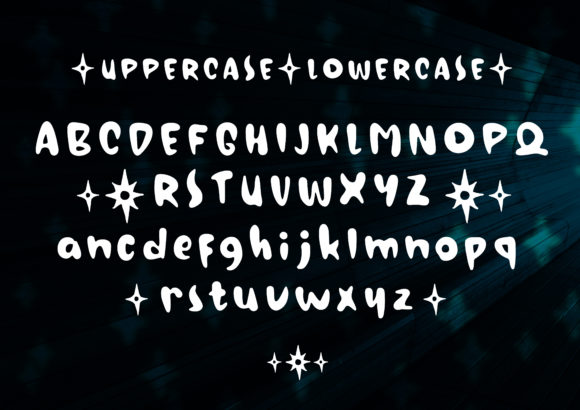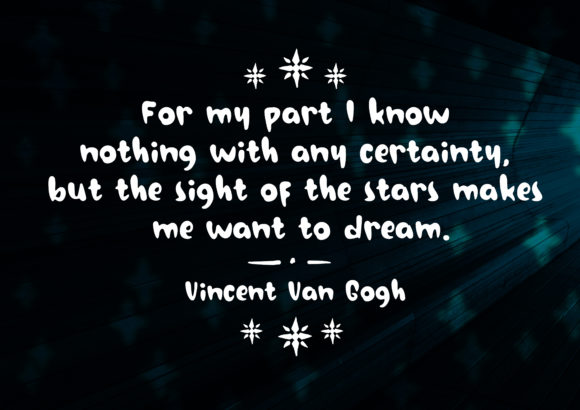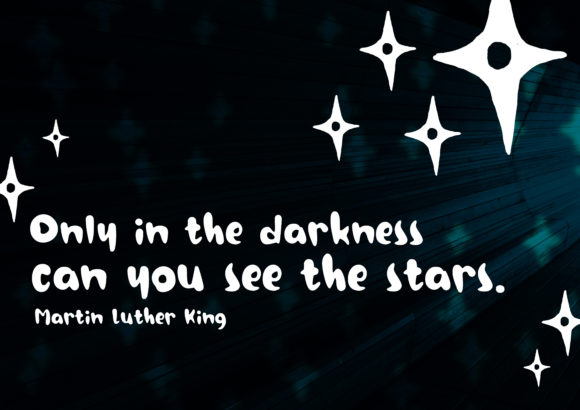
Introducing Flashy Font: The Fun, Shiny, and Bubbly Display Font
Are you tired of using the same old fonts for your designs? Look no further than Flashy Font, a fun, shiny, and bubbly display font that’s sure to add a touch of personality to any project. With its quirky and playful vibe, Flashy Font is perfect for designers and crafters looking to make a statement.
The Characteristics of Flashy Font
So, what makes Flashy Font so special? For starters, its unique and irregular shape gives it a one-of-a-kind look that’s sure to grab attention. The font’s bold and bubbly texture adds a level of whimsy and playfulness, making it perfect for designs that need a bit of flair. Whether you’re working on a logo, a headline, or a social media graphic, Flashy Font is sure to make your text stand out.
What Makes Flashy Font So Versatile?
One of the best things about Flashy Font is its incredible versatility. Despite its bold and playful nature, this font can be used in a wide variety of contexts, from formal to informal, and from digital to print. Whether you’re designing a business card, a brochure, or a website, Flashy Font is sure to adapt seamlessly to your needs.
Flashy Font is perfect for a wide range of design projects, including:
- Logos and branding materials: Add a touch of personality to your logo or branding materials with Flashy Font’s unique and playful vibe.
- Social media graphics: Make your social media graphics stand out with Flashy Font’s bold and bubbly texture.
- Headlines and titles: Add a level of whimsy and playfulness to your headlines and titles with Flashy Font’s irregular shape and bold texture.
- Invitations and party decorations: Flashy Font is perfect for creating fun and playful invitations and party decorations.
Why Designers and Crafters Love Flashy Font
Designers and crafters love Flashy Font for a variety of reasons. For starters, its unique and playful vibe allows them to add a touch of personality to their designs. Additionally, the font’s versatility makes it perfect for a wide range of projects, from formal to informal. Whether you’re a professional designer or a DIY crafter, Flashy Font is sure to become a favorite in your toolkit.
Tips for Using Flashy Font Effectively
Here are a few tips for using Flashy Font effectively:
- Use it sparingly: While Flashy Font is perfect for adding a touch of personality to your designs, it’s best used sparingly. Try using it for headlines or titles, and pairing it with a simpler font for body text.
- Experiment with colors: Flashy Font looks great in a variety of colors, so don’t be afraid to experiment and find the perfect hue for your design.
- Pair it with other fonts: Flashy Font pairs well with a variety of other fonts, so try experimenting with different combinations to find the perfect look for your design.
| Font Name | Flashy Font |
In conclusion, Flashy Font is a fun, shiny, and bubbly display font that’s perfect for designers and crafters looking to add a touch of personality to their designs. With its quirky and playful vibe, versatility, and bold and bubbly texture, Flashy Font is sure to become a favorite in your toolkit. Whether you’re working on a logo, a headline, or a social media graphic, Flashy Font is sure to make your text stand out.